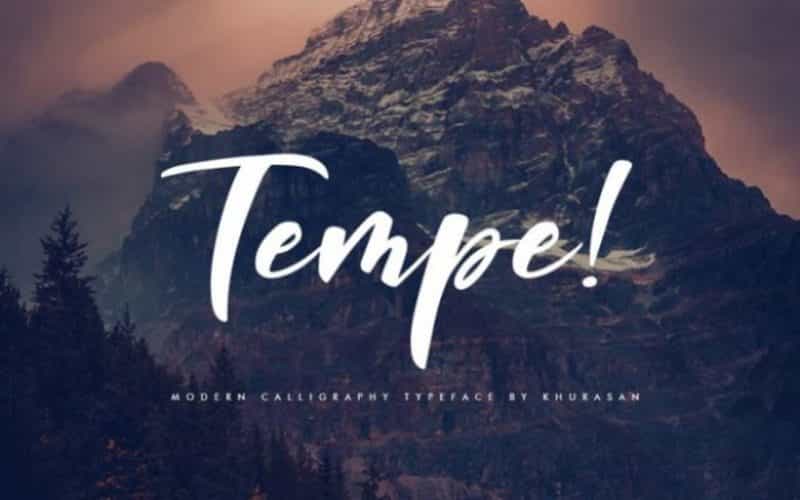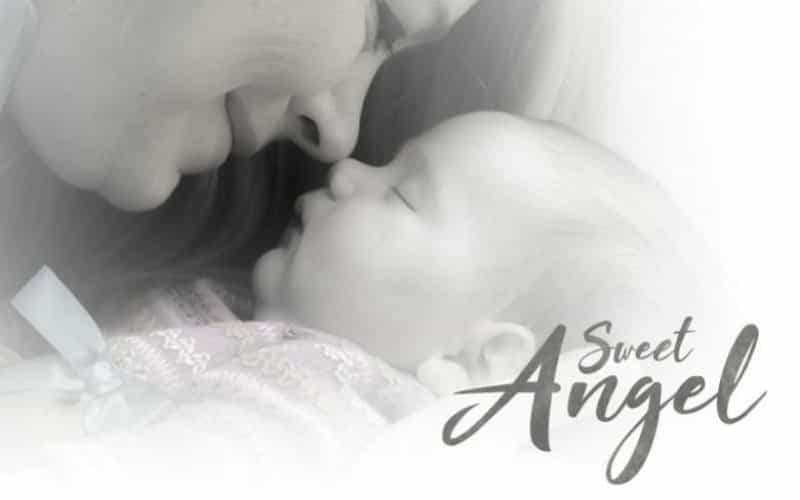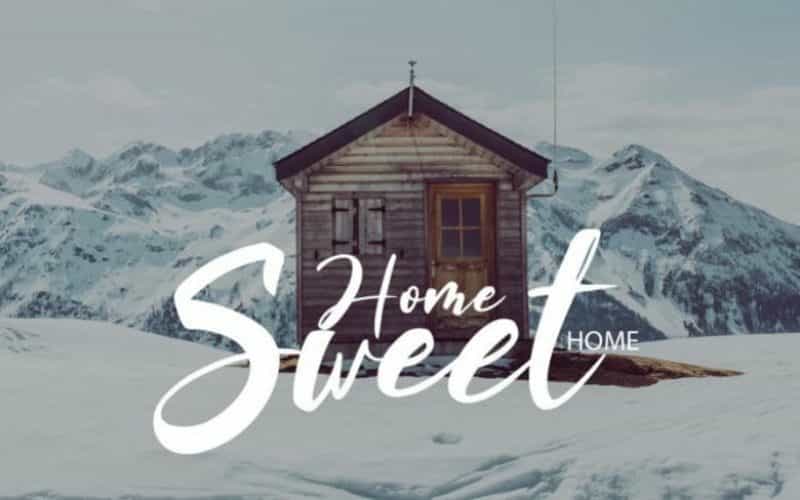
Introducing… Tempe!Script Font is a playful and strong script font, the feeing is fresh and the style is modern. Tempe!Script Font that is perfect for logo, branding, greeting card, poster and any design that you come up with.